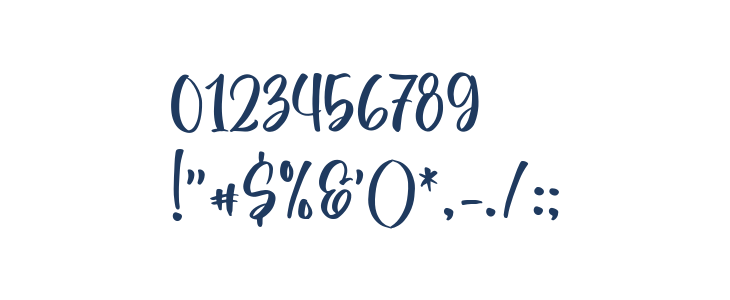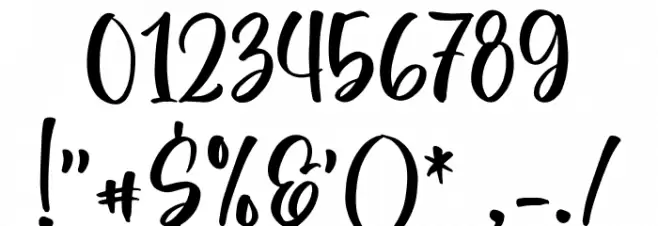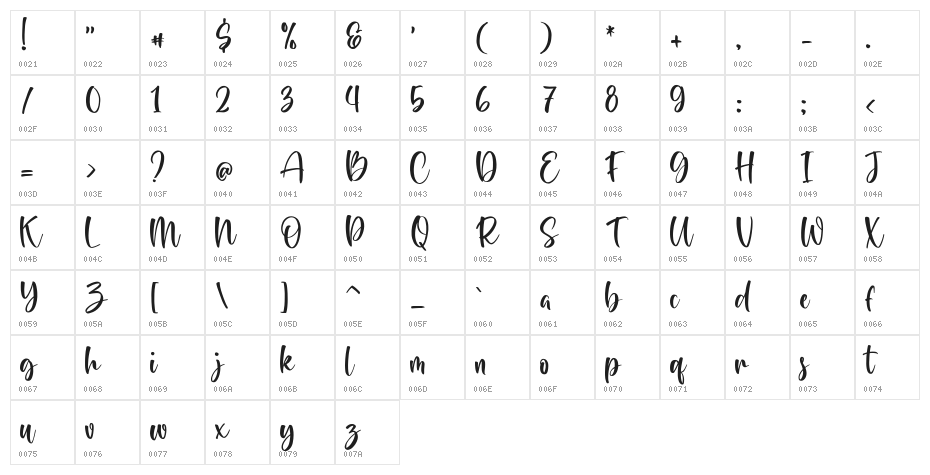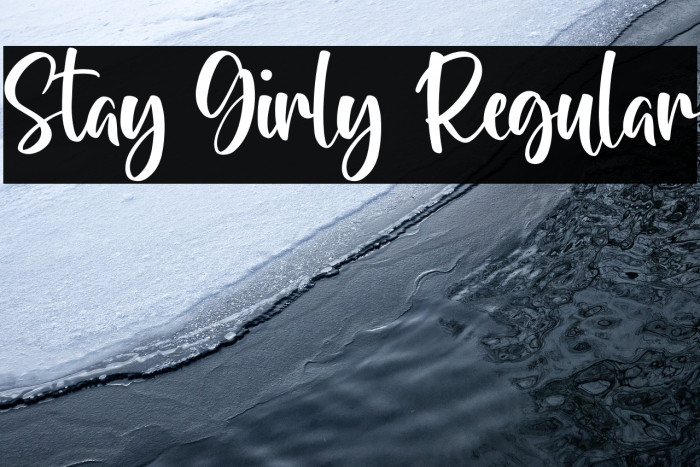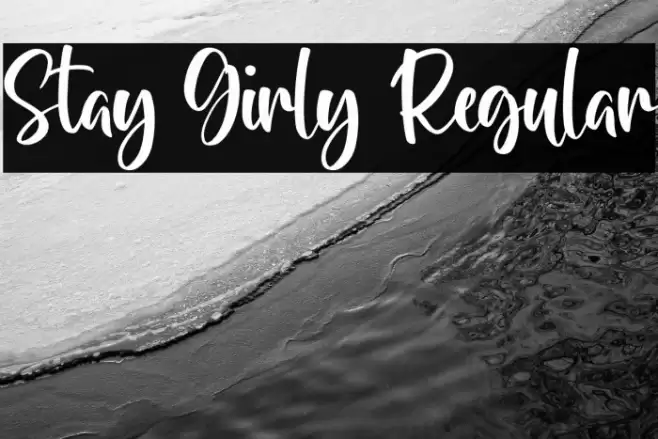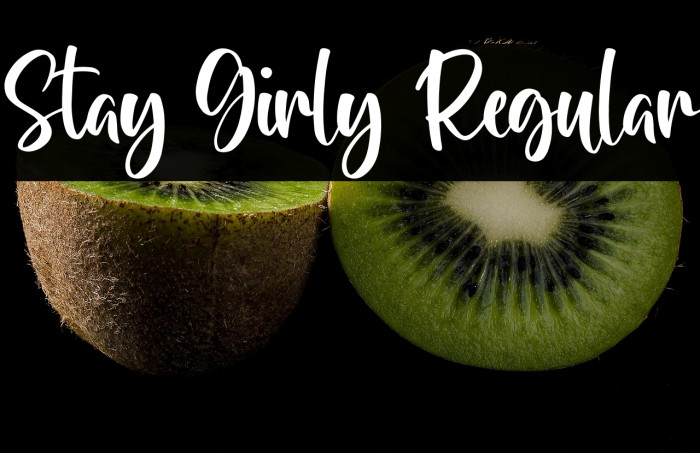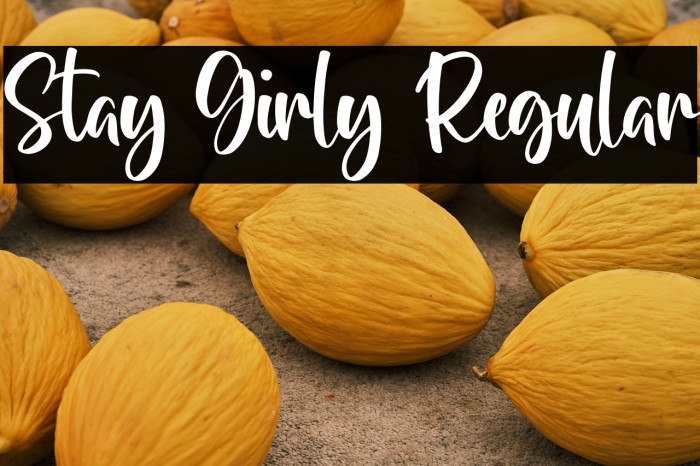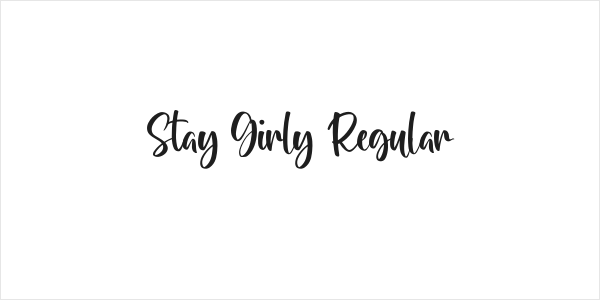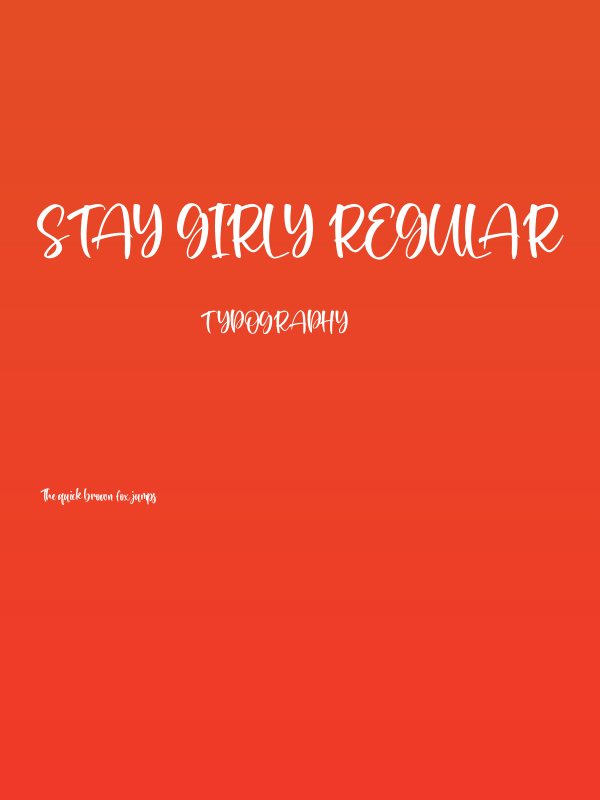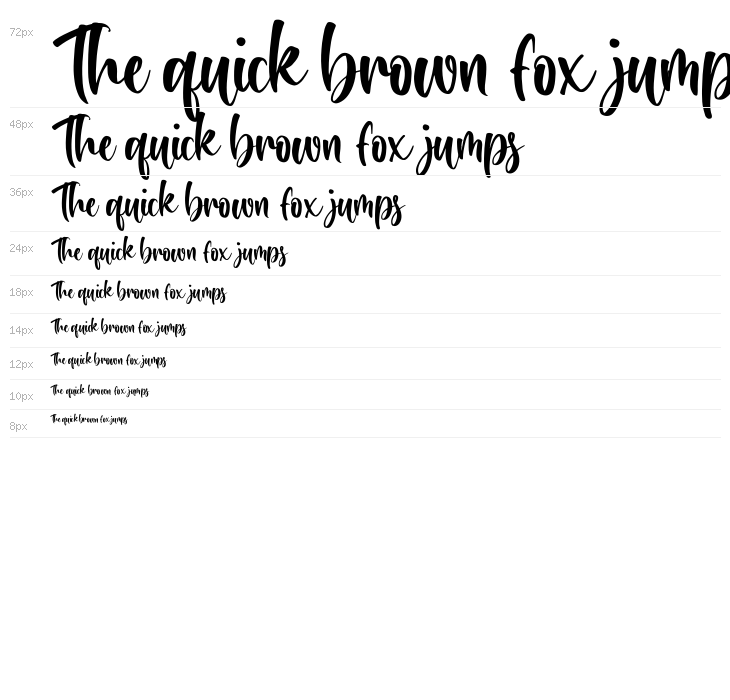
Stay Girly Regular Font
Stay Girly Regular Description
This font exudes a playful and energetic vibe with its flowing, cursive style. The letters are bold and have a hand-drawn appearance, giving it a personal and informal touch. The uppercase and lowercase letters are well-balanced, with a consistent stroke width that adds to its readability. The numbers and special characters maintain the same lively style, ensuring a cohesive look across all text elements. The font's design is perfect for projects that require a fun and approachable feel, making it ideal for creative and casual applications.
| Proposed Projects | Ideal for greeting cards, invitations, social media graphics, and branding that requires a personal touch. |